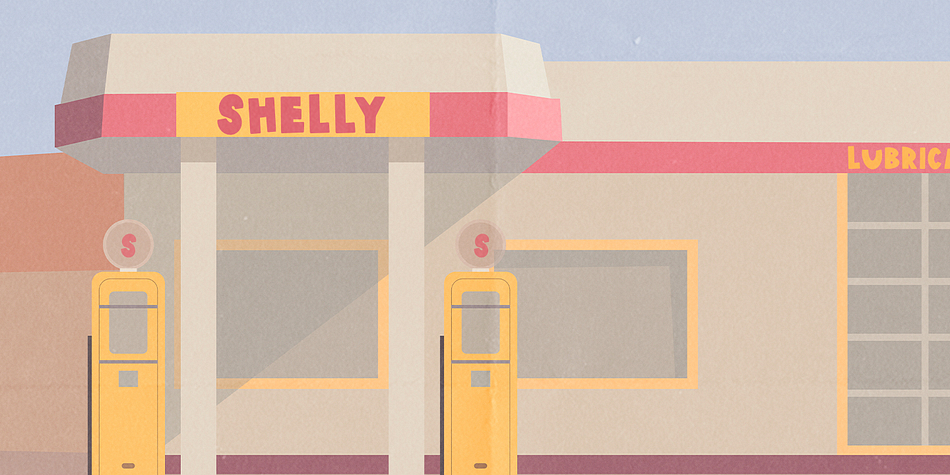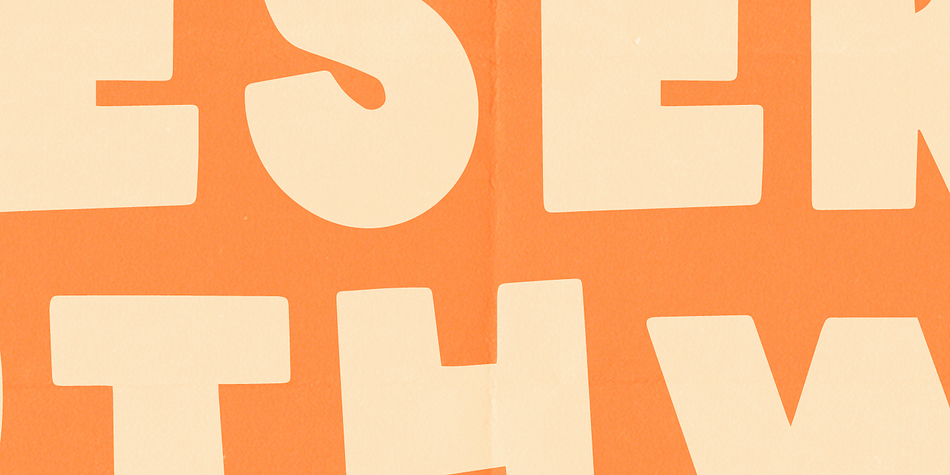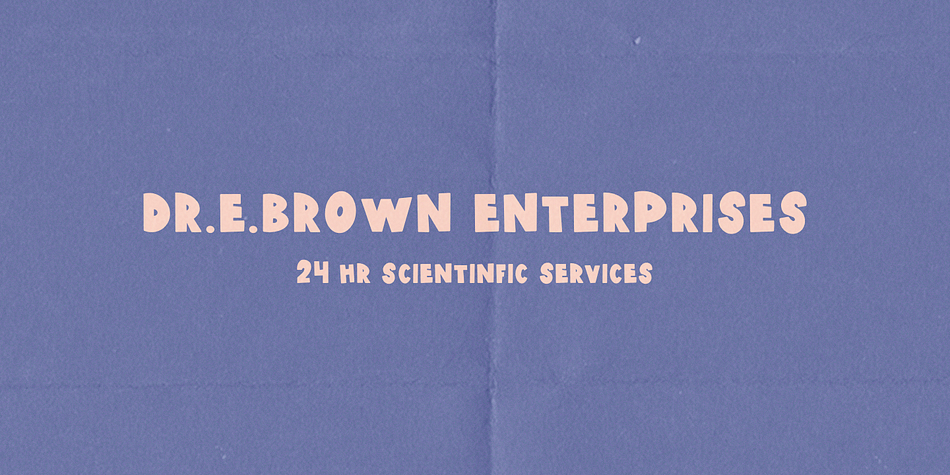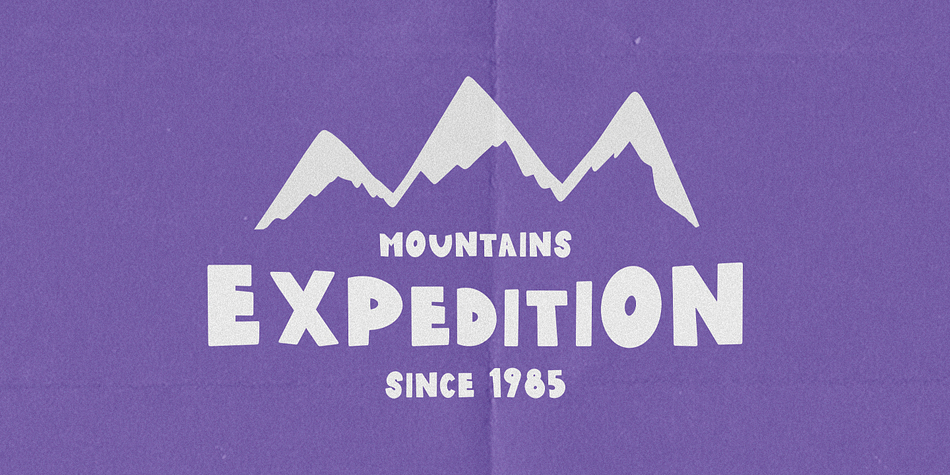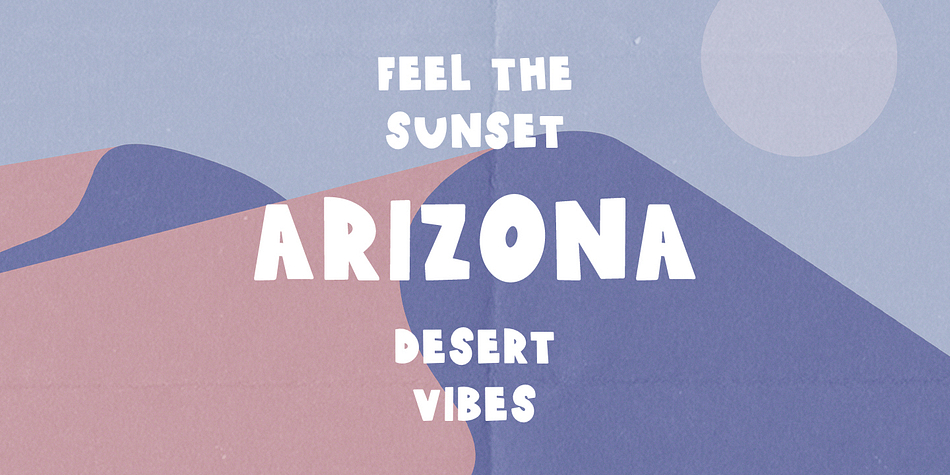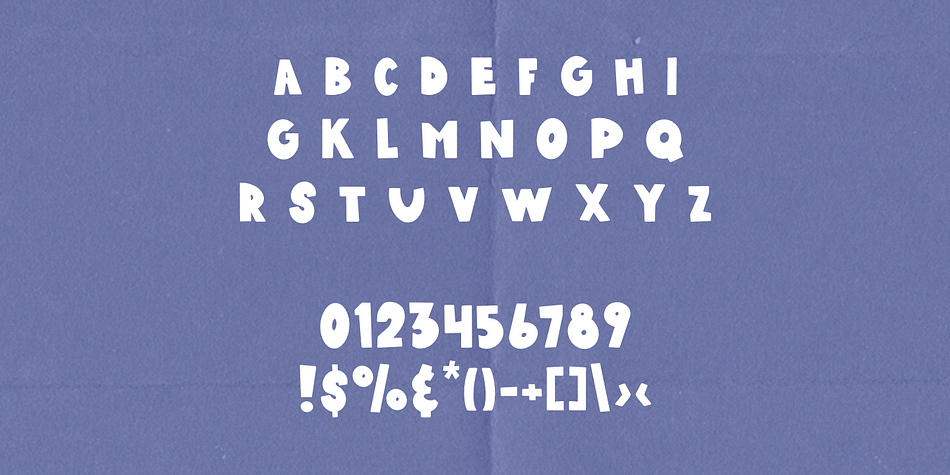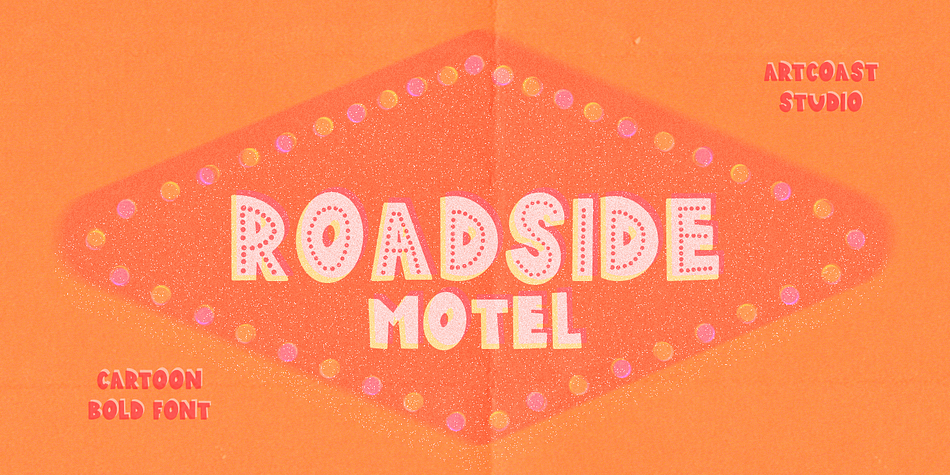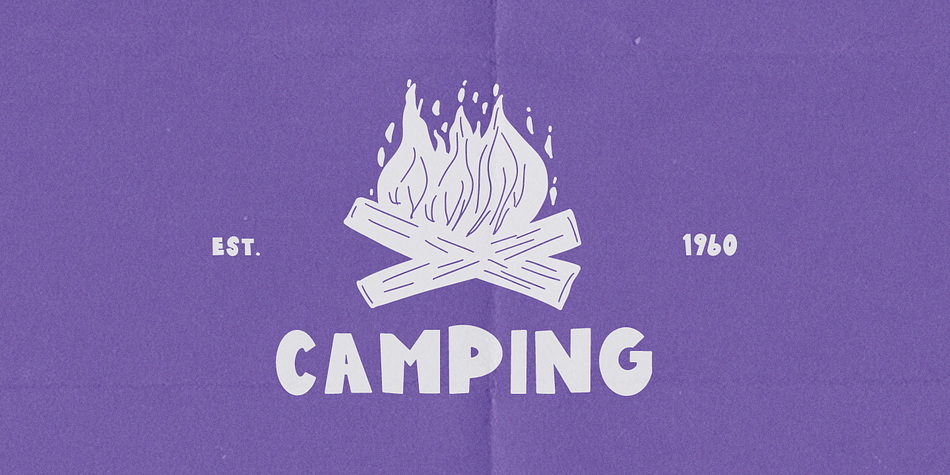
Designed by Dmitry Mashkin, Roadside Motel Font is a hand display font family. This typeface has two styles and was published by ArtCoast.
Give your designs an authentic handcrafted feel. Roadside Motel font, is perfectly suited to packaging, invitations, quotes, t-shirts, labels, posters, typography quotes, magazine or book cover, website header, clothing, packaging design etc.